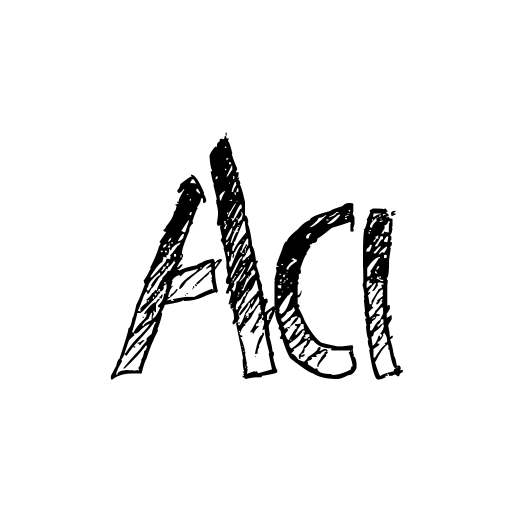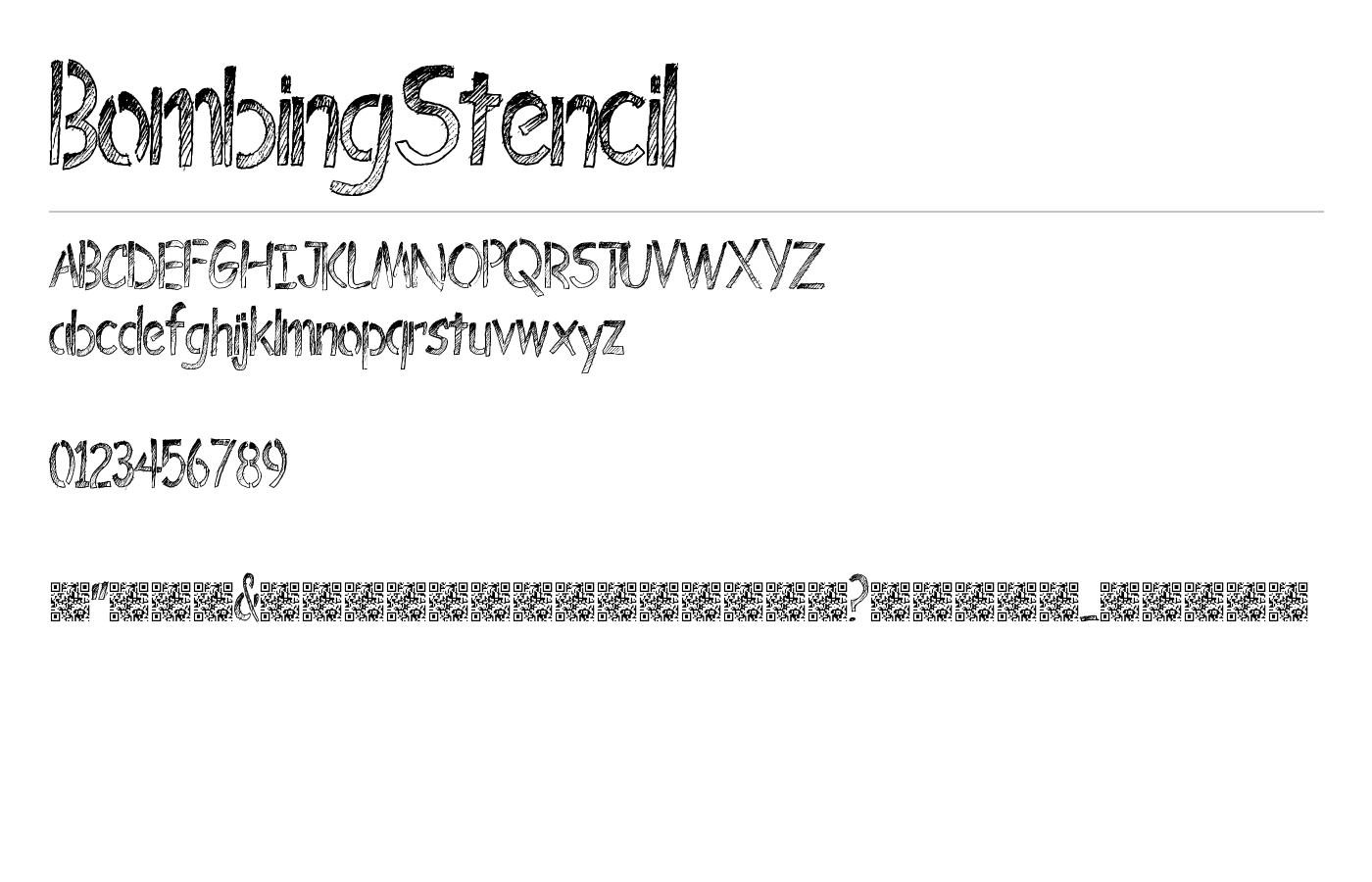
BombingStencil is a quirky stencil-style font with a hand-drawn, textured look that gives it a playful and informal feel. Its tall, narrow letterforms and rough, sketchy lines make it perfect for creative and urban designs, capturing a sense of spontaneity and edge. This font works well for artistic posters, streetwear branding, and informal headlines where a unique, eye-catching style is desired.